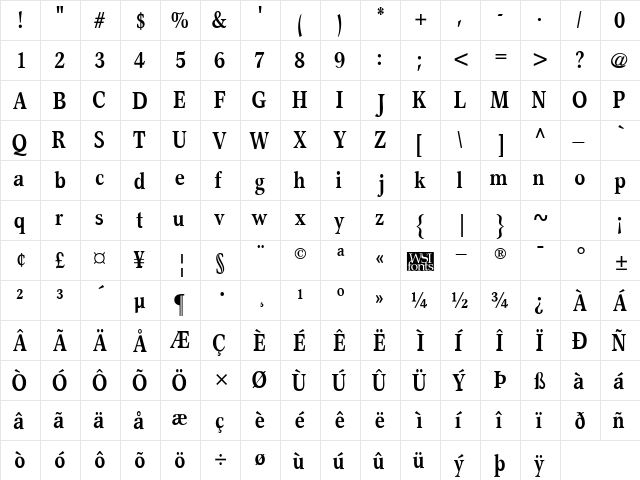
StewardCond Bold
Design Context for StewardCond Typeface
StewardCond offers clean, dependable letterforms without strong stylistic allegiance, making it a practical choice for designers who need flexibility. The heavy weight commands attention and anchors typographic hierarchies. Its narrow stance lets it pack a punch even in space-constrained designs.